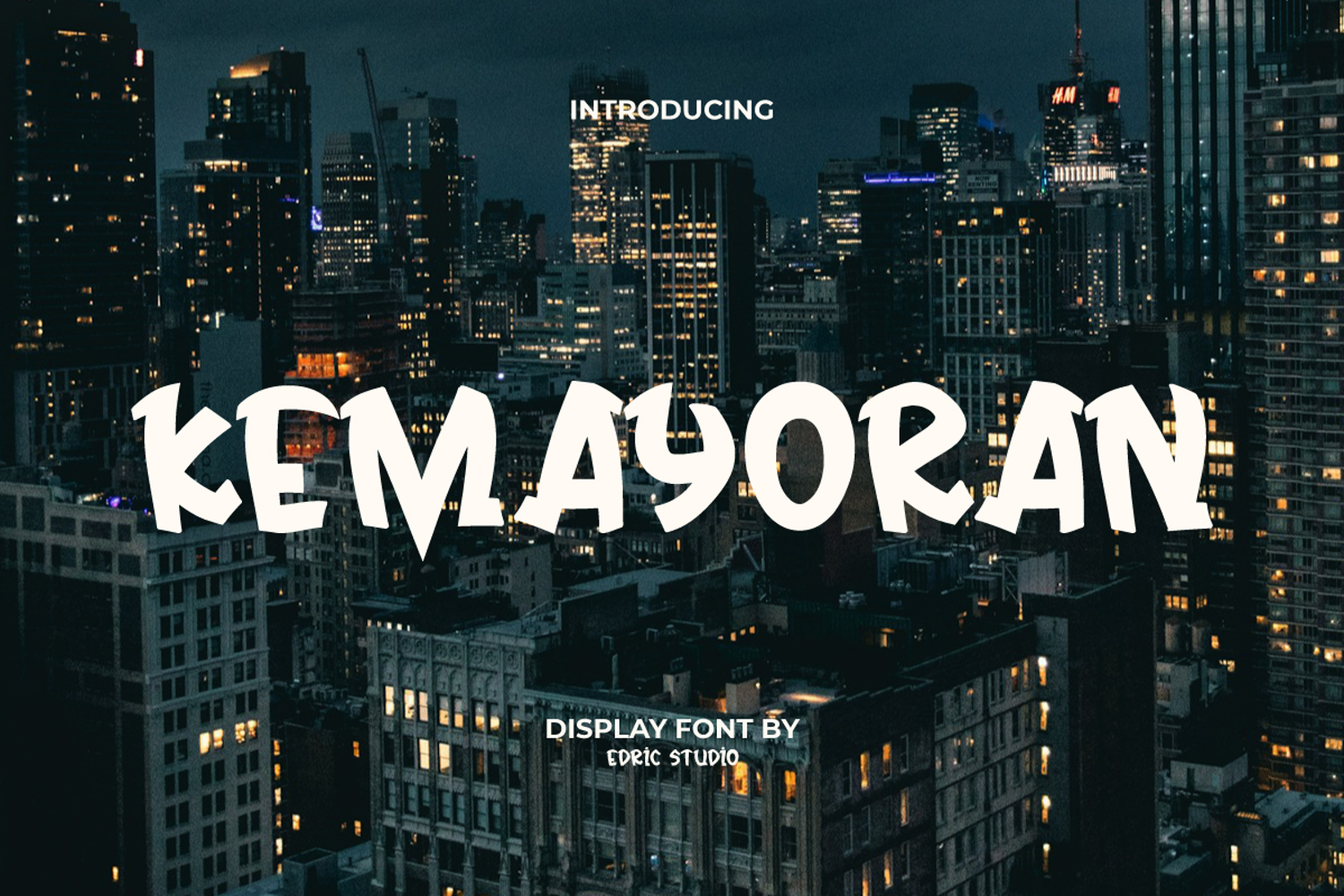
Kemayoran Font
Kemayoran Font is a vintage retro display font with unique letter shapes. Perfect for designs that need a retro and hipster feel with a contemporary twist. This display typeface is a striking one that attracts attention. Its bold, high-contrast design will bring a delightfully nostalgic feel to your projects. Perfect for blogs, headers, labels, logos, product packaging, sticker, titles, etc.
Kemayoran Font includes a complete set of ALL CAPS for Uppercase and Lowercase Letters, Numbers, Punctuation and Symbols. This ensures the originality and excellence of a design so that it is good to use for automotive, cafeteria, movie, sports, sportswear brand, and much more.